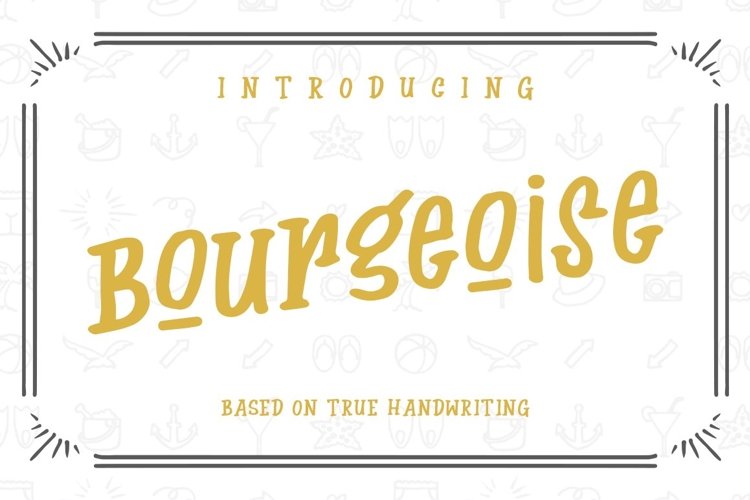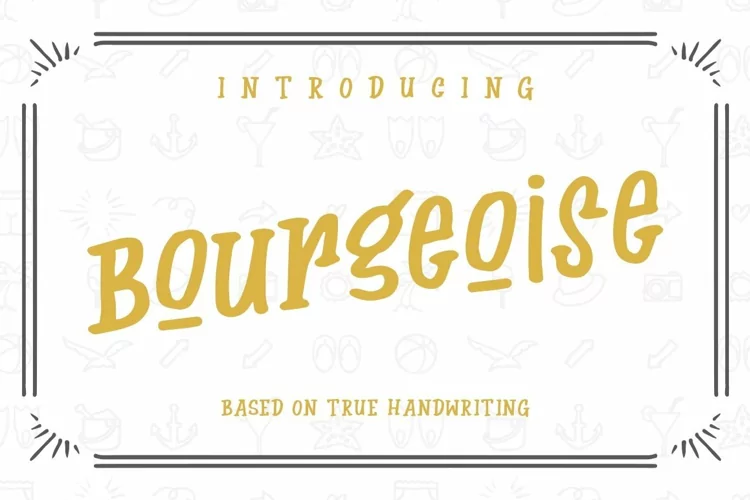
Bourgeoise is a handwritten font perfect for craft and design projects. Supporting multiple languages and glyph variations this font is dynamic enough to be used time and time again.